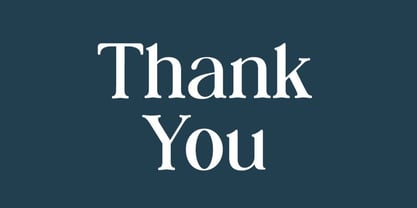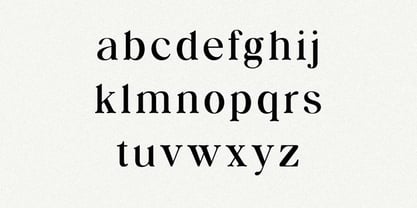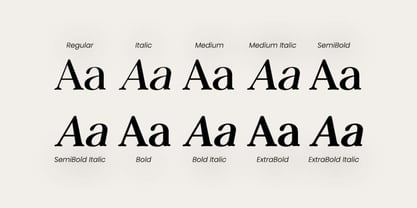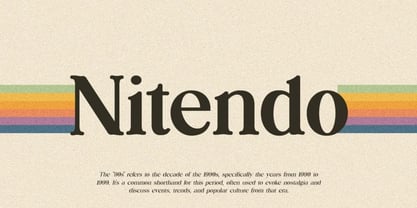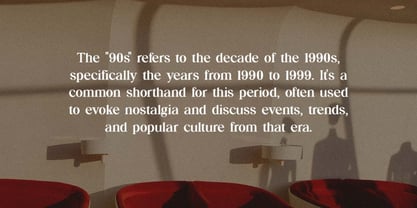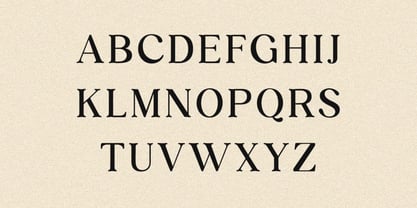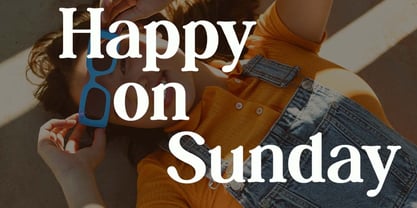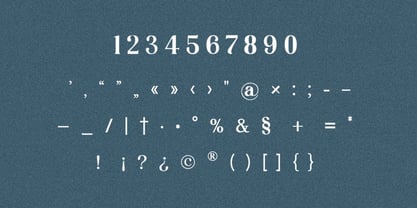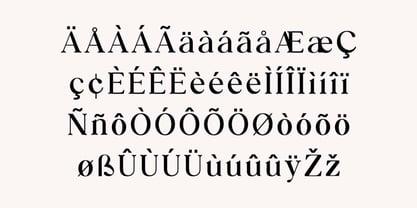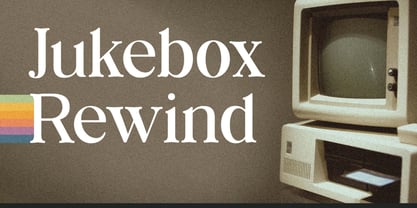
Jukeboxrewind
by UICreative
The Jukeboxrewind Font Family was designed by Hero and published by UICreative. Jukeboxrewind contains 10 styles and family package options.
Jukebox Rewind Vintage Serif Family Font. The modern display font feels beautiful classy, elegant, and stylish. This font is ideally suited for a wide variety of projects, such as signature, stationery, logo, wedding, typography quotes, magazine or book covers, website headers, branding, and more. Also, fashion-related branding or editorial design displays both masculine and feminine qualities.
Designers: Hero
Publisher: UICreative
Foundry: UICreative